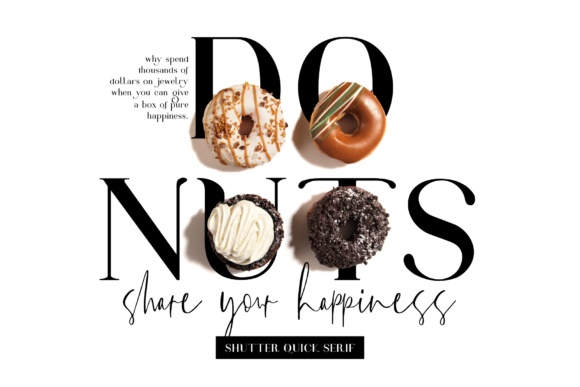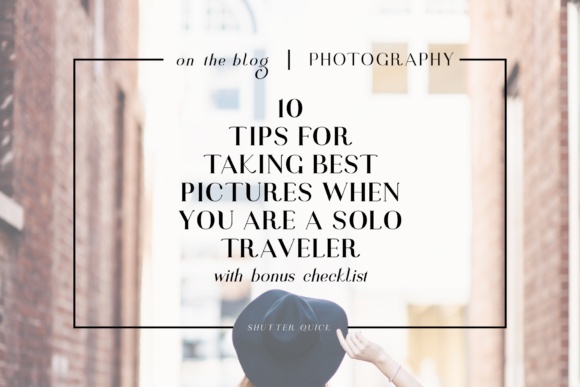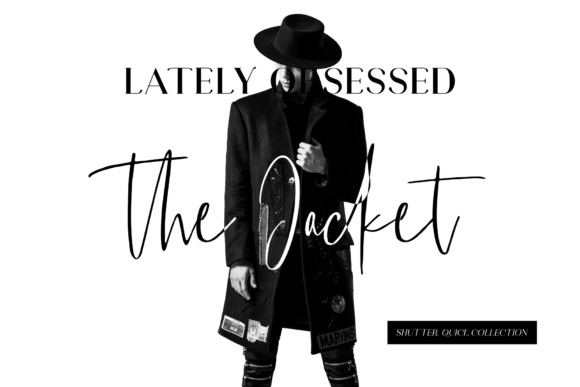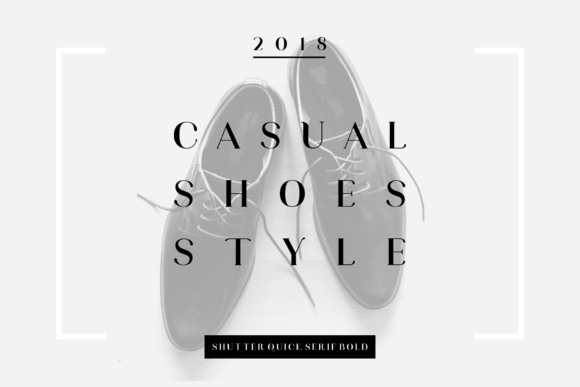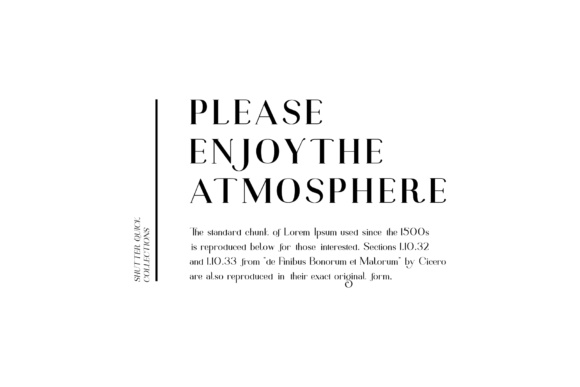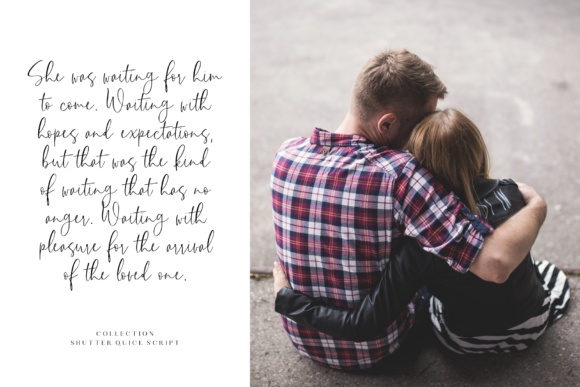
Introduction to Shutter Quick Font
Have you ever stared at a blank page, waiting for the perfect words to flow? As designers, we’ve all been there. The blank slate can be daunting, but it’s also a chance to create something truly special. For me, that spark often comes from finding the right font. And today, I’m excited to share with you a game-changing design resource: the Shutter Quick Font duo.
This beautiful font pair, consisting of a relaxed handwritten script font and a bold serif font, is the perfect combination for giving any project an editorial feel. Whether you’re working on a free download or a high-quality creative project, Shutter Quick Font has got you covered. With its reliable style combination, you can trust that your designs will stand out – and that’s priceless for any designer.
With Shutter Quick Font, you’ll be able to add a touch of elegance and sophistication to your work, all while maintaining a transparent background that lets your creativity shine. So, let’s dive in and explore the world of Shutter Quick Font – your next design project is waiting!
Key Features of Shutter Quick Font
- Designed with a unique aesthetic, the Shutter Quick Font features a bold and playful style that can add a touch of personality to any design.
- Includes a range of characters, including uppercase and lowercase letters, numbers, and punctuation marks, making it a versatile font for various creative projects.
- Perfect for designers and artists working on creative projects, such as logos, graphics, and typography-based designs, where a high-quality and unique font is essential.
Honest Review: Shutter Quick Font
As a designer, I’m always on the lookout for high-quality design resources to elevate my creative projects. Recently, I stumbled upon the Shutter Quick Font, and I’m excited to share my honest review with you.
- High-quality typography: The Shutter Quick Font boasts a clean and modern design that’s perfect for a variety of creative projects.
- Transparent background: The font’s transparent background makes it easy to overlay on images or other design elements.
- Limited character set: The Shutter Quick Font is a relatively small font, and it may not include the full range of characters you need for a project.
- No customization options: Unfortunately, the font doesn’t offer any customization options, which may limit its use in certain design scenarios.
Overall, I’m impressed with the Shutter Quick Font’s quality and versatility. While it may have some limitations, it’s a great addition to any designer’s toolkit, especially for creative projects that require a modern and sleek typography.
Design Tips and Tricks
To get the most out of Shutter Quick Font, use it on a design with a transparent background to make the text stand out. You can also use it in conjunction with other high-quality design resources to create a unique and creative project.
Shutter Quick Font is ideal for use in logos, branding materials, and digital signage. Its clean and modern design makes it perfect for a variety of creative projects, including social media graphics, flyers, and brochures.